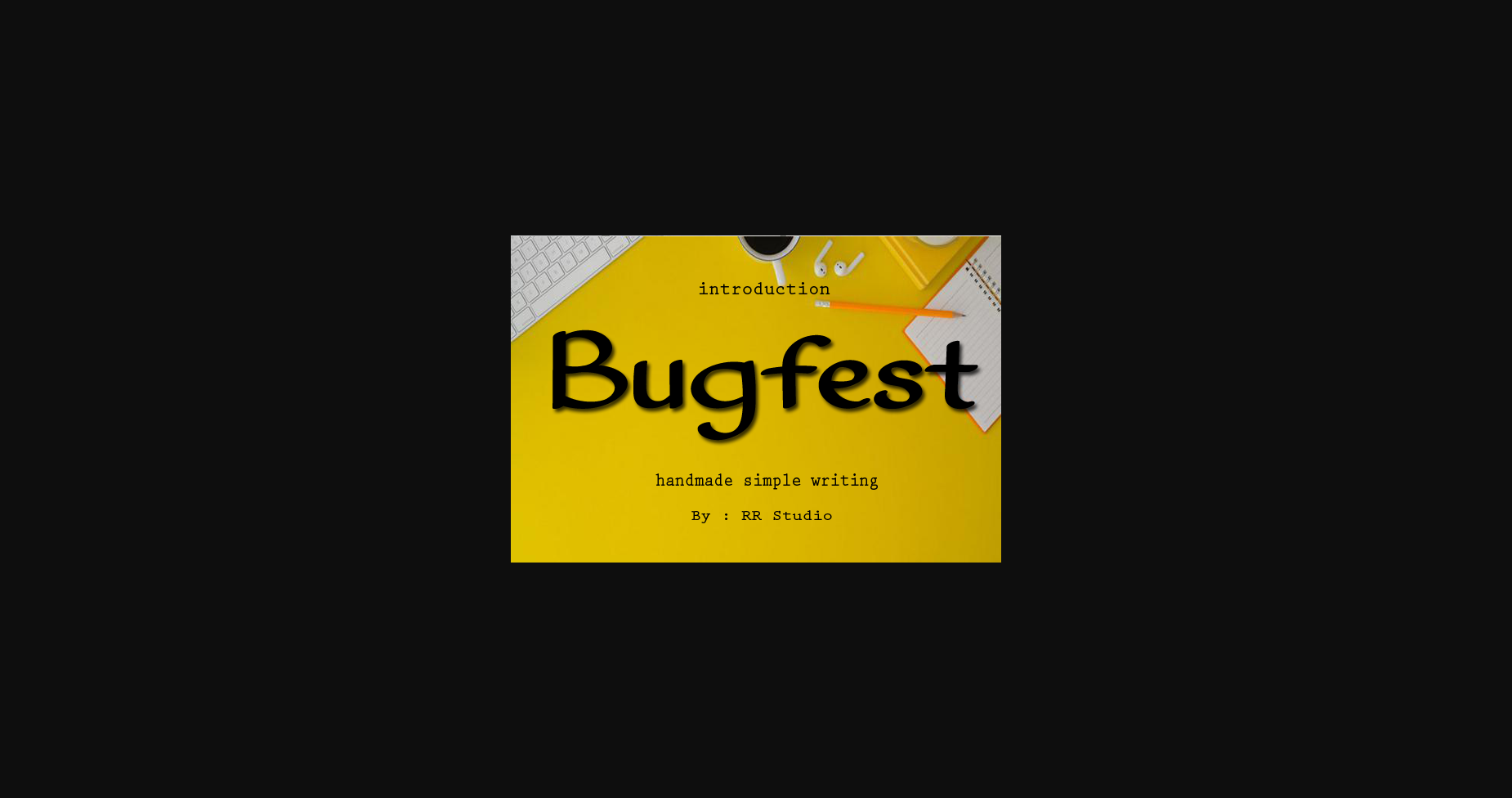
Bugfest is a clean and simple lettered sans serif font. This versatile script font has a wide spectrum of applications ranging from greeting cards to headlines and is guaranteed to add a cool feel to your next project.